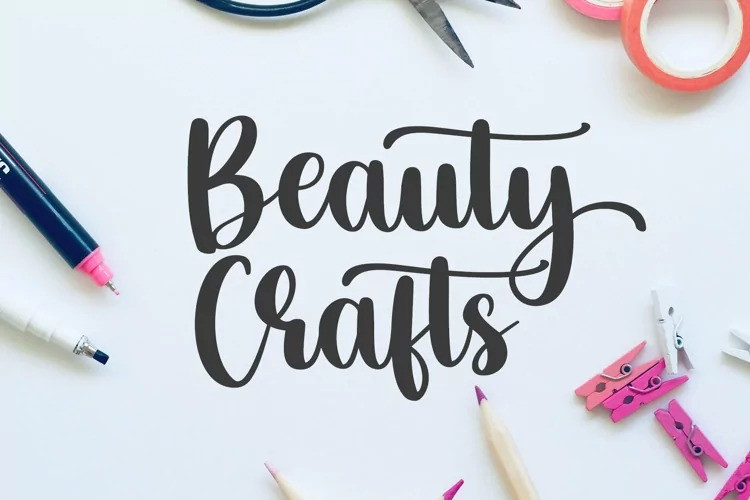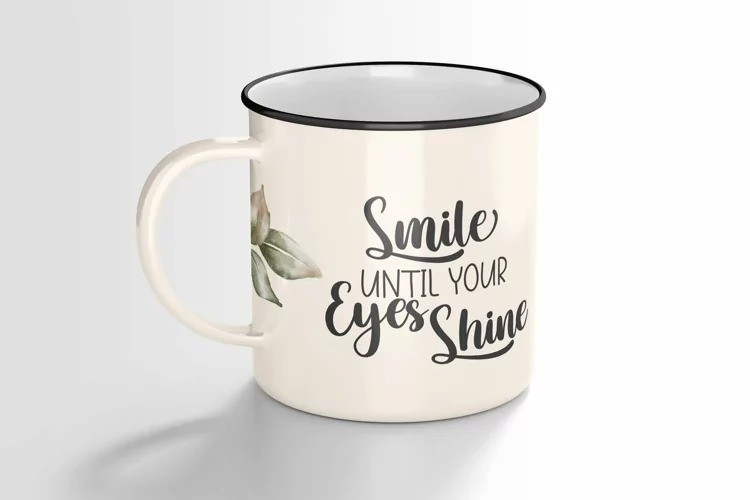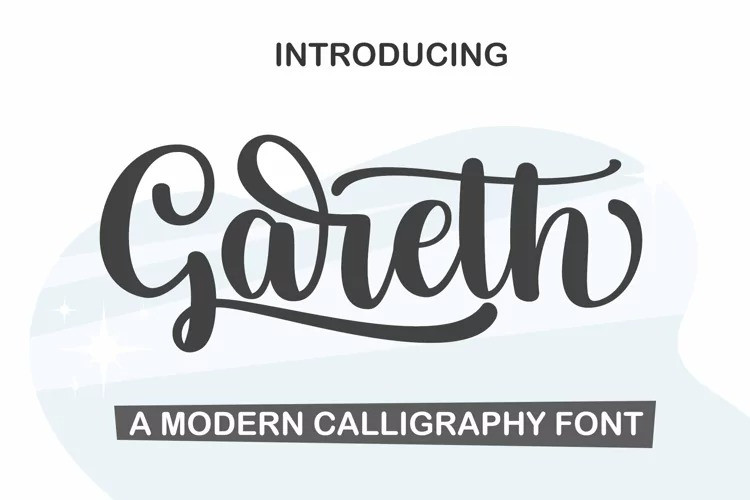
Gareth Font
Gareth Font is a timeless handwritten font. It is the best choice for creating eye catching logos, branding and quotes. Every letter has a unique and beautiful touch, which will make your design come alive!